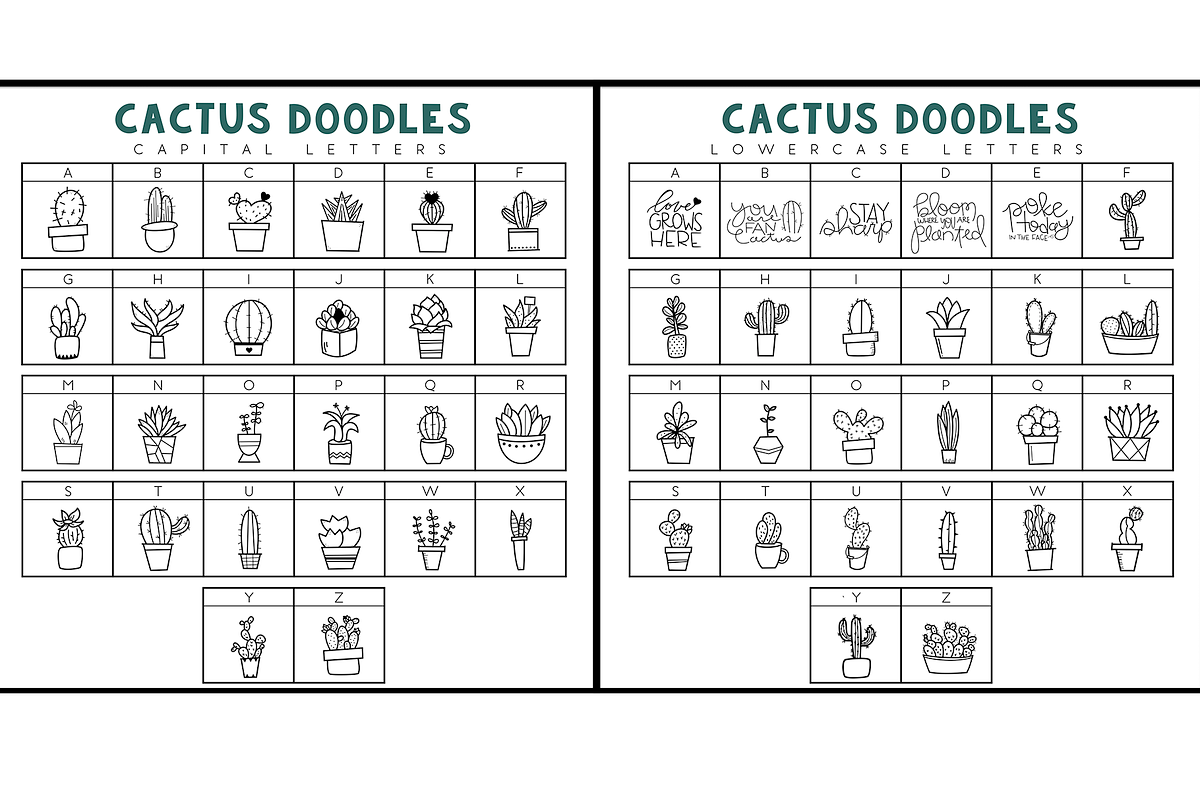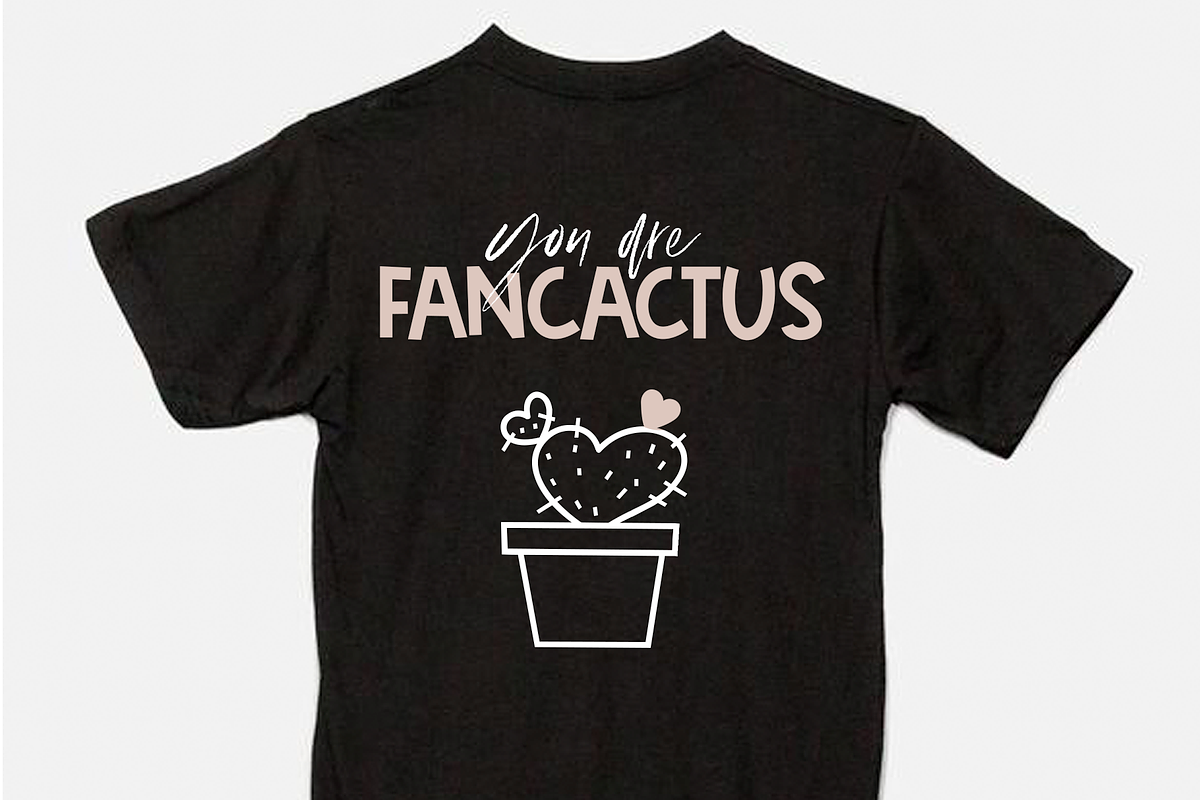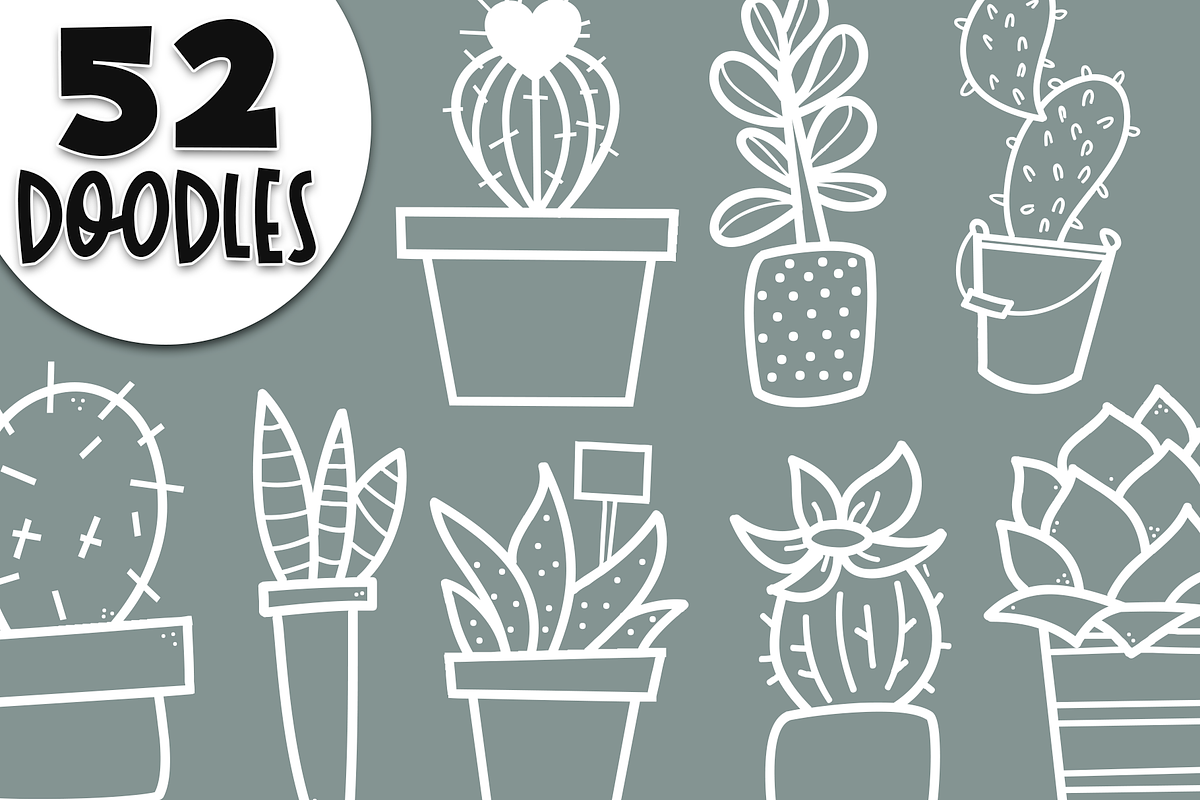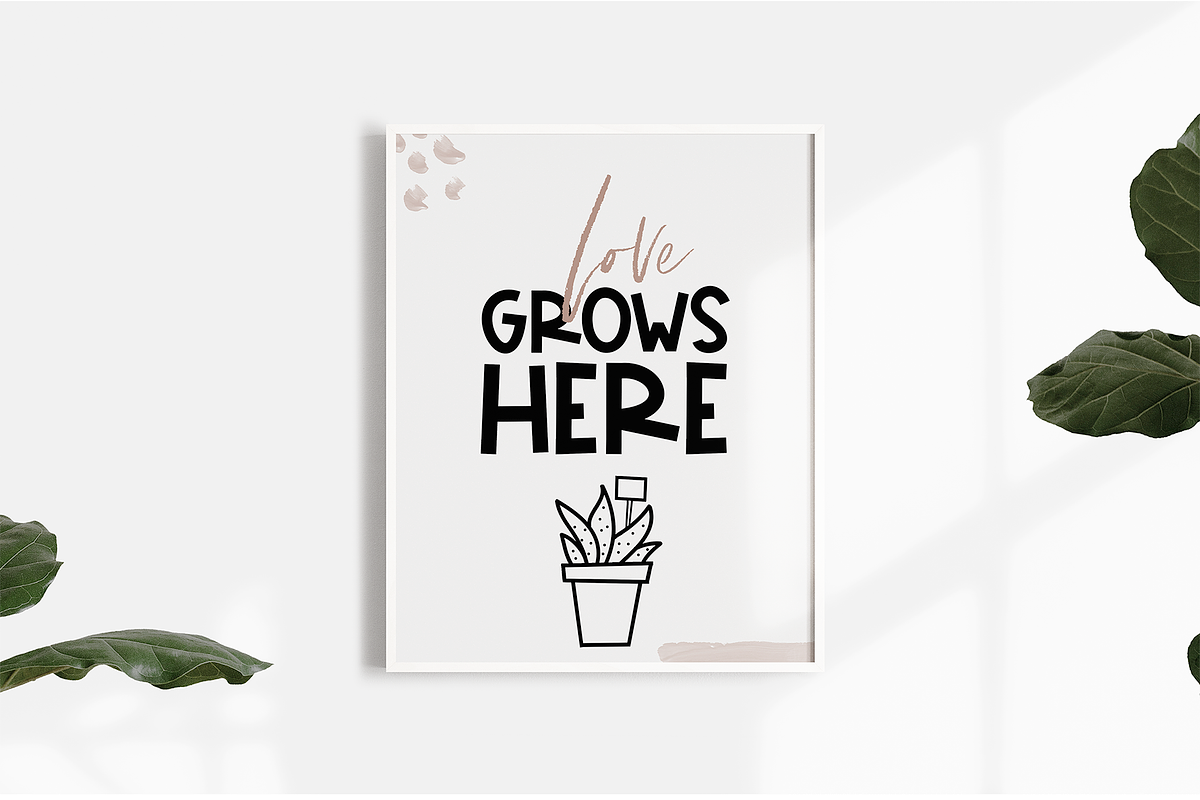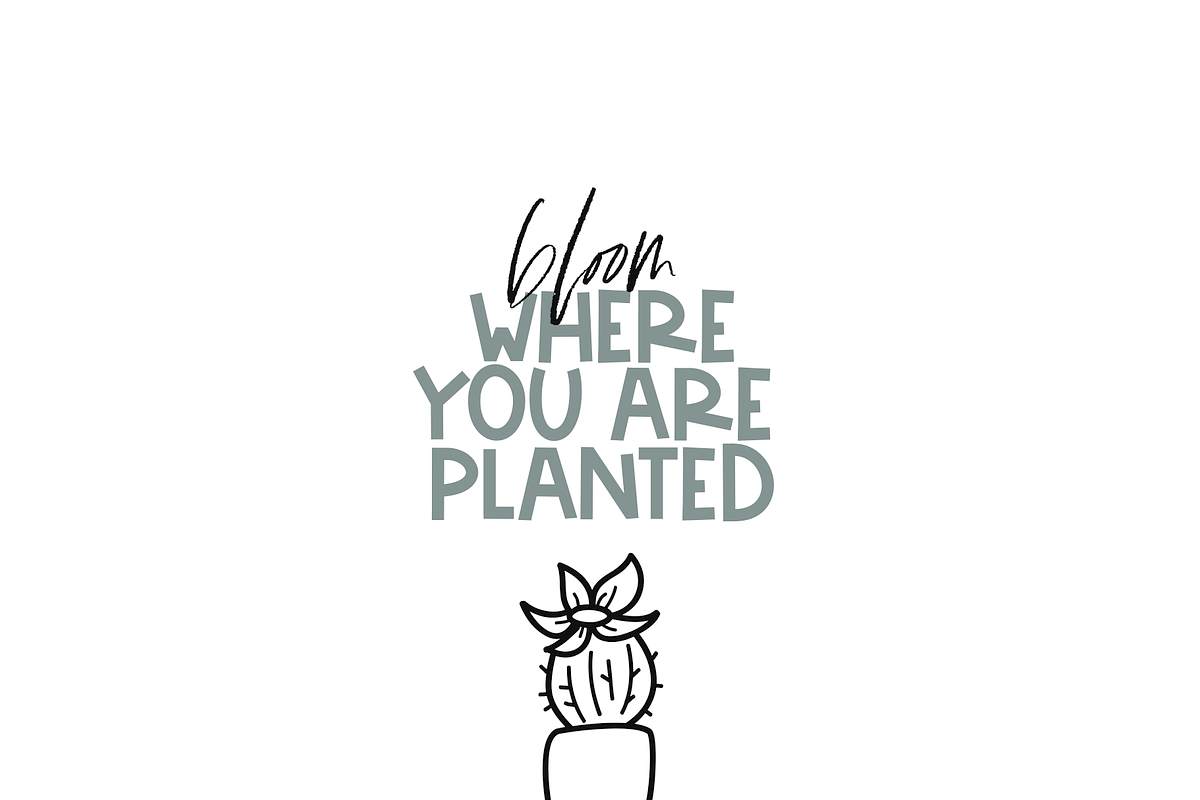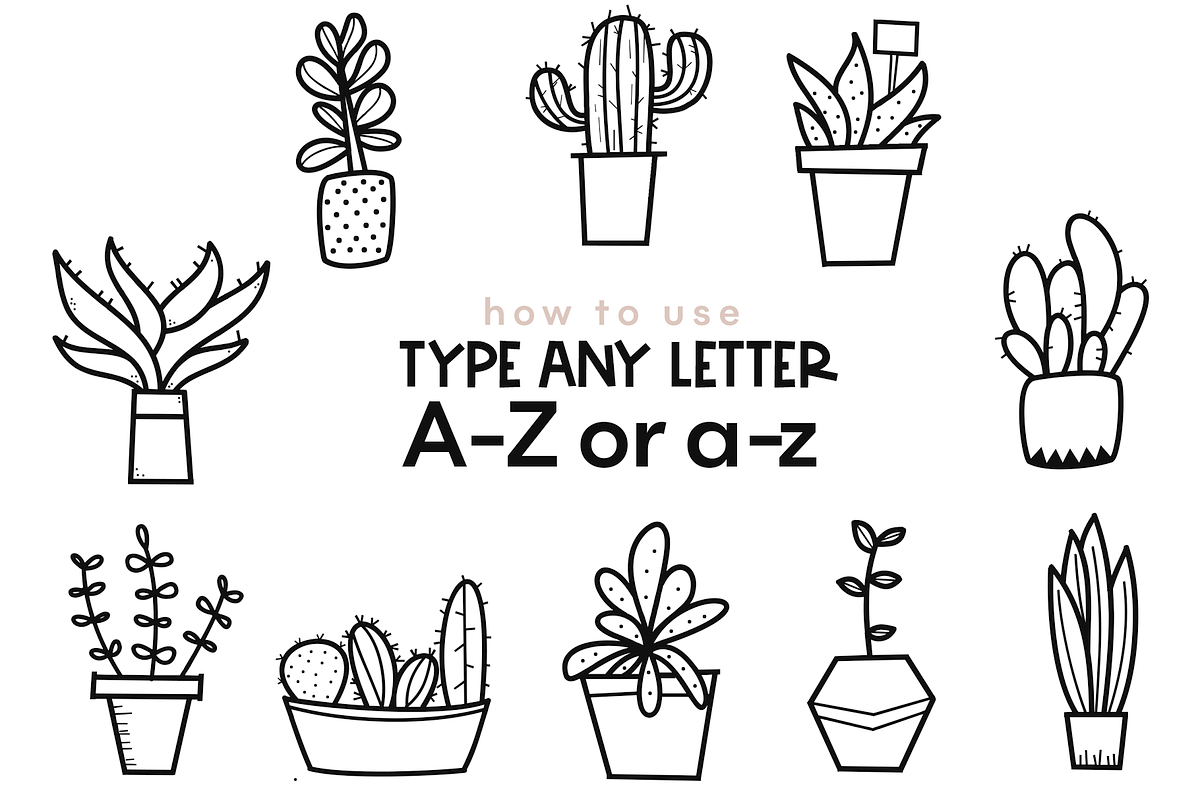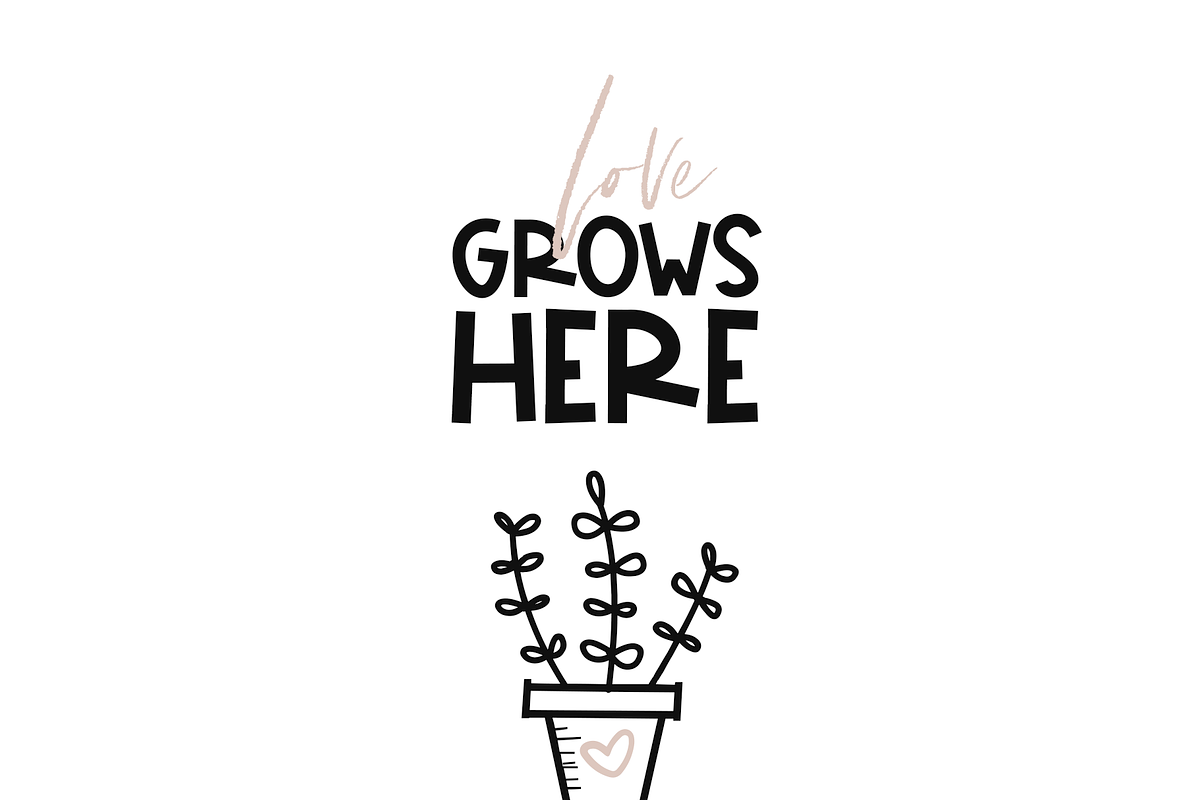
Fancactus - A Fun Doodle Font
Fancactus is a doodle (dingbat) font.
Instead of separate image files, you have access to all 52 in the convenience of a font!
Instead of a letter showing up, a small doodle will!
You can resize the doodle, color the doodle and add text to the doodles!
- It includes 52 hand-drawn, succulent & cactus doodles.